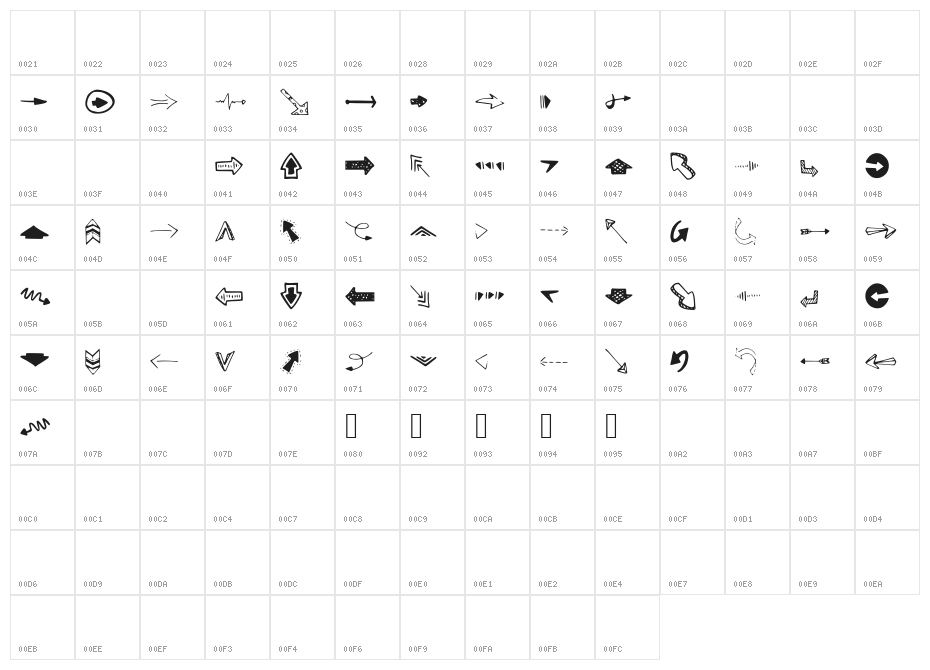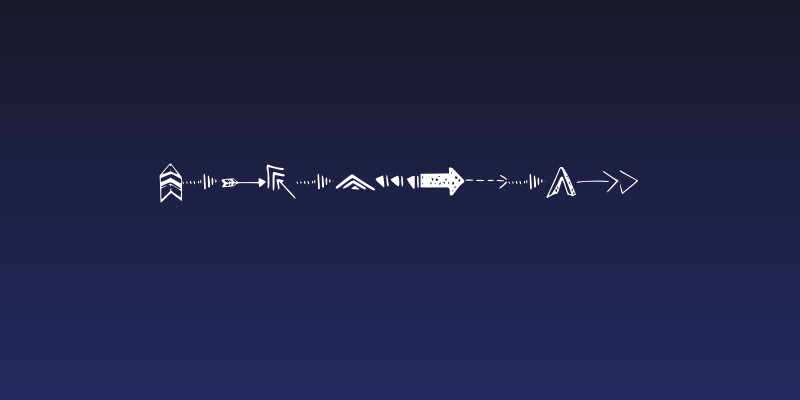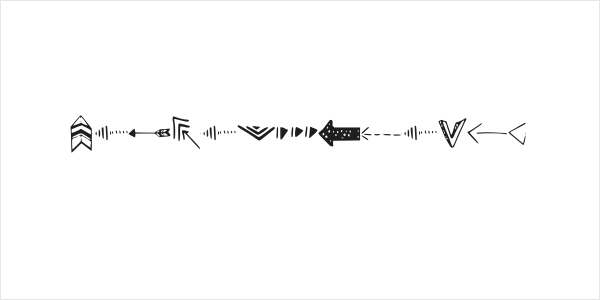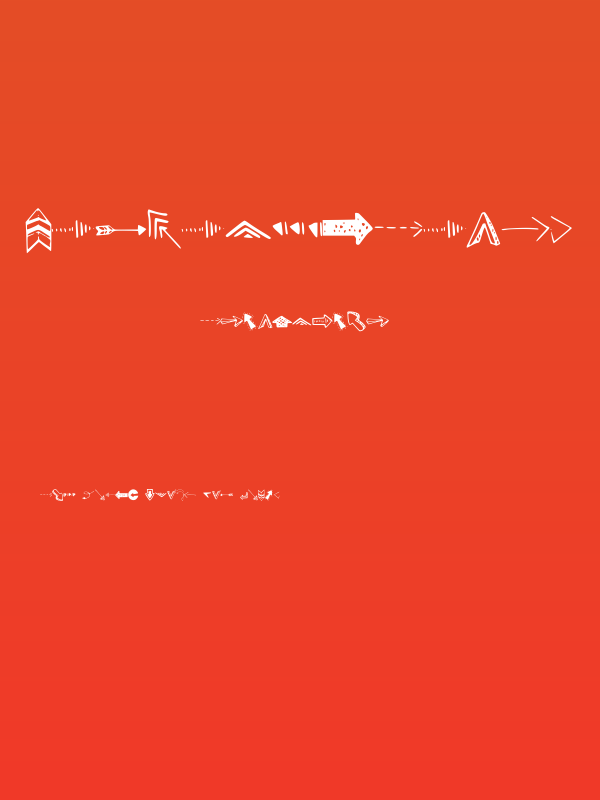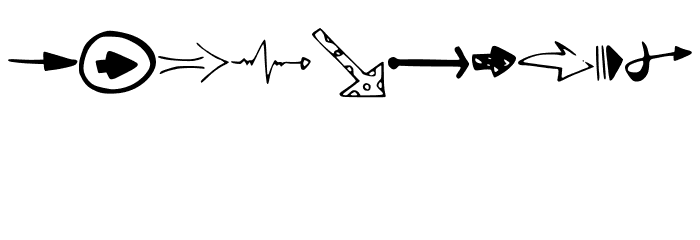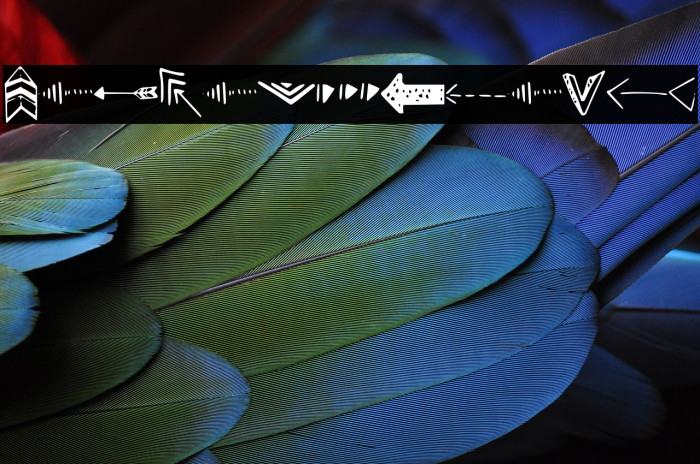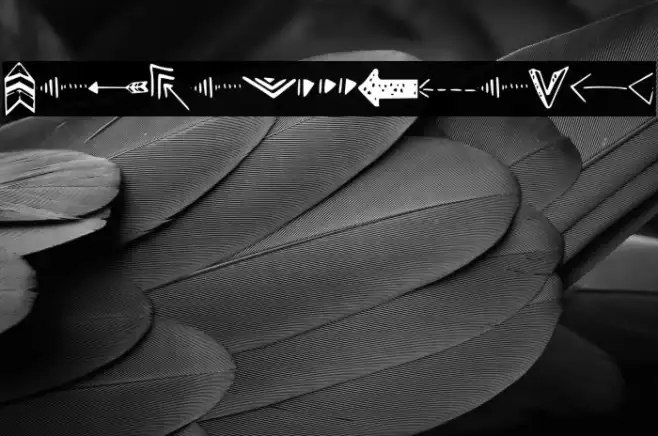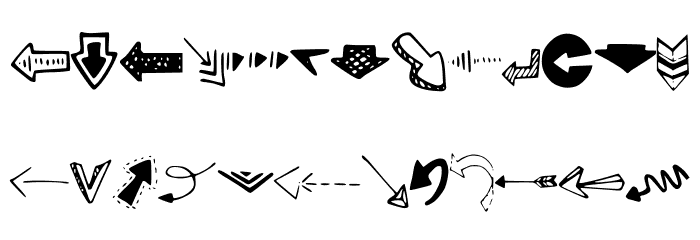
MixDirections Font
MixDirections Description
A playful, hand-drawn decorative font composed entirely of various arrow designs, each character featuring unique shapes, line weights, and directions, giving a dynamic and whimsical appearance.
| Overall Style | Decorative, Playful, Hand-drawn |
| Use Case | Display text, Creative headings, Visual accents |
| Proposed Projects | Infographics, creative presentations, posters, educational materials, playful branding. |